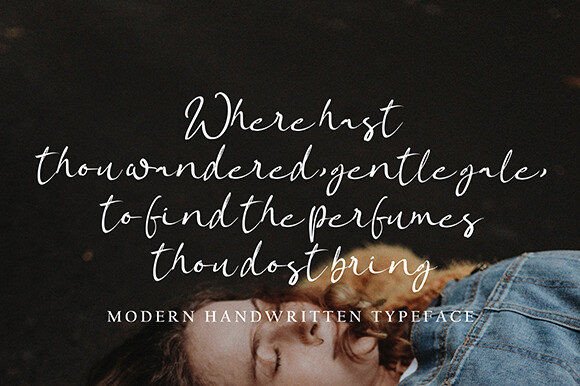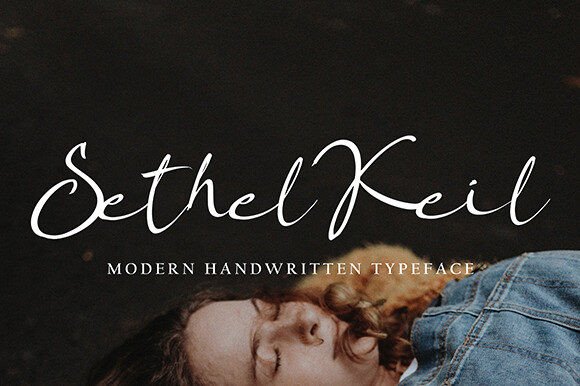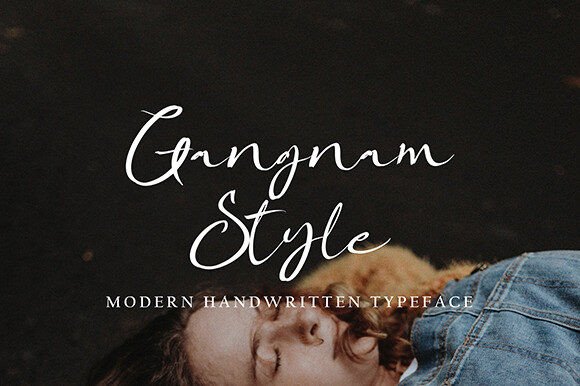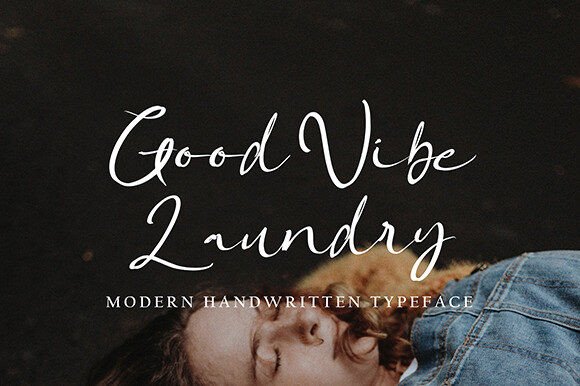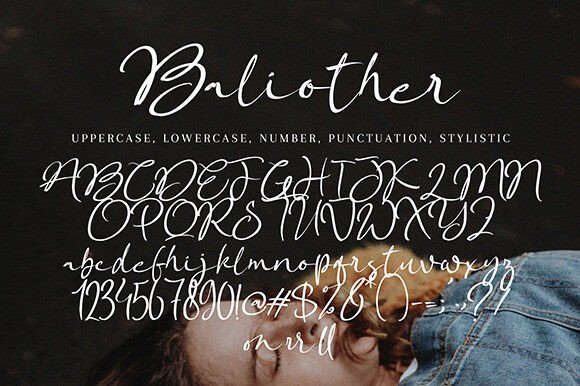
Baliother Font: Elevate Your Designs with a Modern Handwritten Typeface
In the world of typography, fonts play a crucial role in conveying the tone and personality of a design. For designers and crafters looking to add a touch of elegance and sophistication to their projects, the Baliother font is an excellent choice. This modern handwritten typeface is perfect for a wide range of applications, from quotes and logos to blog headers, posters, branding, letters, invitations, stationery, and more.
The Versatility of Baliother Font
One of the standout features of the Baliother font is its versatility. Its unique, handwritten style makes it suitable for various design projects, allowing you to express your creativity and bring your ideas to life. Whether you’re working on a personal project or a client’s, this font is sure to make a lasting impression.
Perfect for Quotes and Inspirational Content
For designers who specialize in creating inspirational content, such as quotes, posters, and social media graphics, the Baliother font is an excellent choice. Its elegant, cursive style adds a touch of sophistication and emotion to your designs, making them perfect for sharing motivational messages and uplifting quotes.
Ideal for Logos and Branding
When it comes to creating logos and branding materials, the right font can make all the difference. The Baliother font, with its modern and stylish aesthetic, is perfect for businesses looking to establish a strong brand identity. Its unique style will help your brand stand out from the competition and leave a lasting impression on your target audience.
Enhance Your Blog with Baliother Font
For bloggers and content creators, the Baliother font can be used to create stunning blog headers, titles, and even social media graphics. Its elegant style will add a touch of sophistication to your blog, making it more visually appealing and engaging for your readers.
Create Stunning Posters and Print Materials
The Baliother font is also perfect for creating posters, flyers, brochures, and other print materials. Its clear, readable style ensures that your message is conveyed effectively, while its stylish aesthetic adds a touch of elegance to your designs.
Use Baliother Font for Invitations and Stationery
For crafters and designers who specialize in creating invitations, stationery, and other paper crafts, the Baliother font is an excellent choice. Its elegant, handwritten style makes it perfect for creating beautiful wedding invitations, birthday cards, and other special occasion stationery.
Why Choose Baliother Font?
So, why choose the Baliother font for your design projects? Here are just a few reasons:
• Unique and stylish aesthetic: The Baliother font has a unique, modern style that will add a touch of elegance to your designs.
• Versatile: This font is perfect for a wide range of design projects, from quotes and logos to blog headers and posters.
• Easy to read: The Baliother font is clear and easy to read, making it perfect for body text and headlines.
• High-quality: This font is designed to deliver high-quality results, ensuring that your designs look professional and polished.
In conclusion, the Baliother font is a versatile and stylish typeface that is perfect for designers and crafters looking to elevate their designs. Its unique, handwritten style makes it suitable for a wide range of applications, from quotes and logos to blog headers, posters, branding, letters, invitations, stationery, and more. With its elegant aesthetic and high-quality design, the Baliother font is sure to become a staple in your design toolkit.